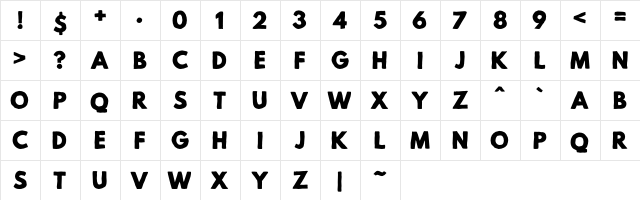
Mild Life Regular Personal Use Regular
Design Context for Mild Life Regular Personal Use Typeface
Mild Life Regular Personal Use is a composed and adaptable typeface that performs quietly and consistently across a wide range of design contexts.